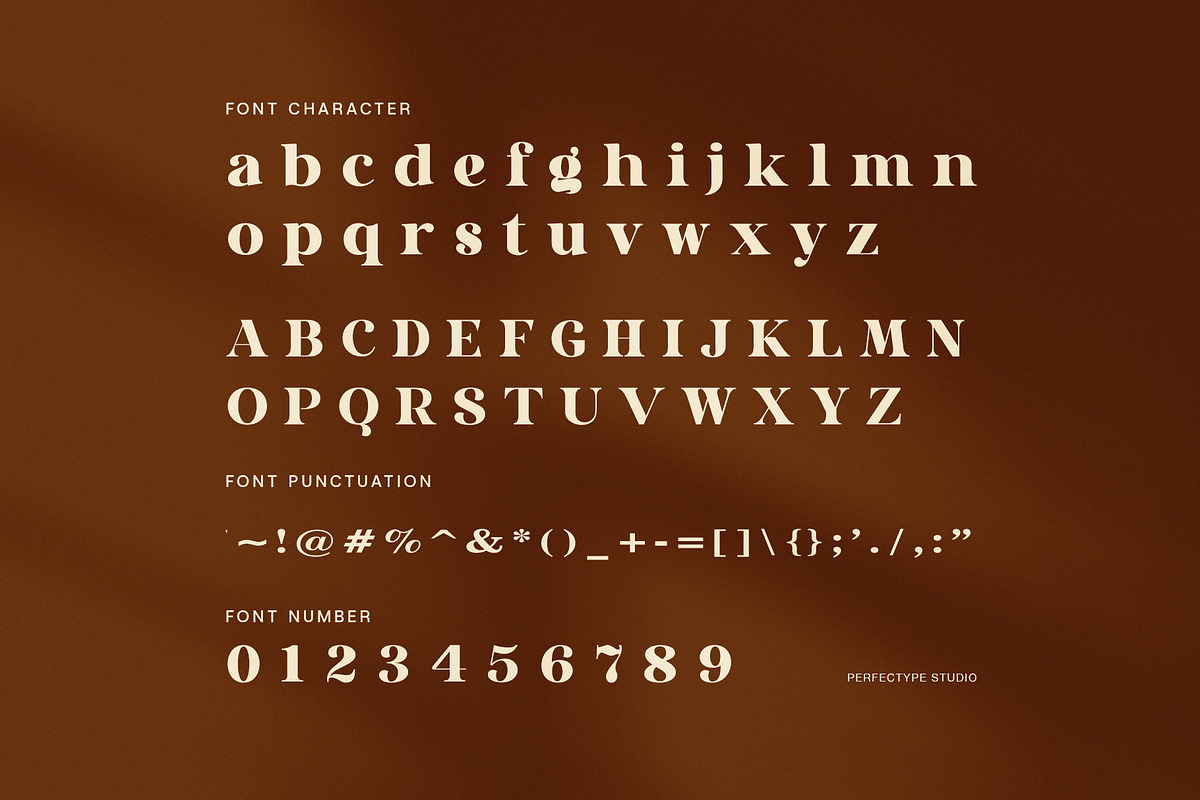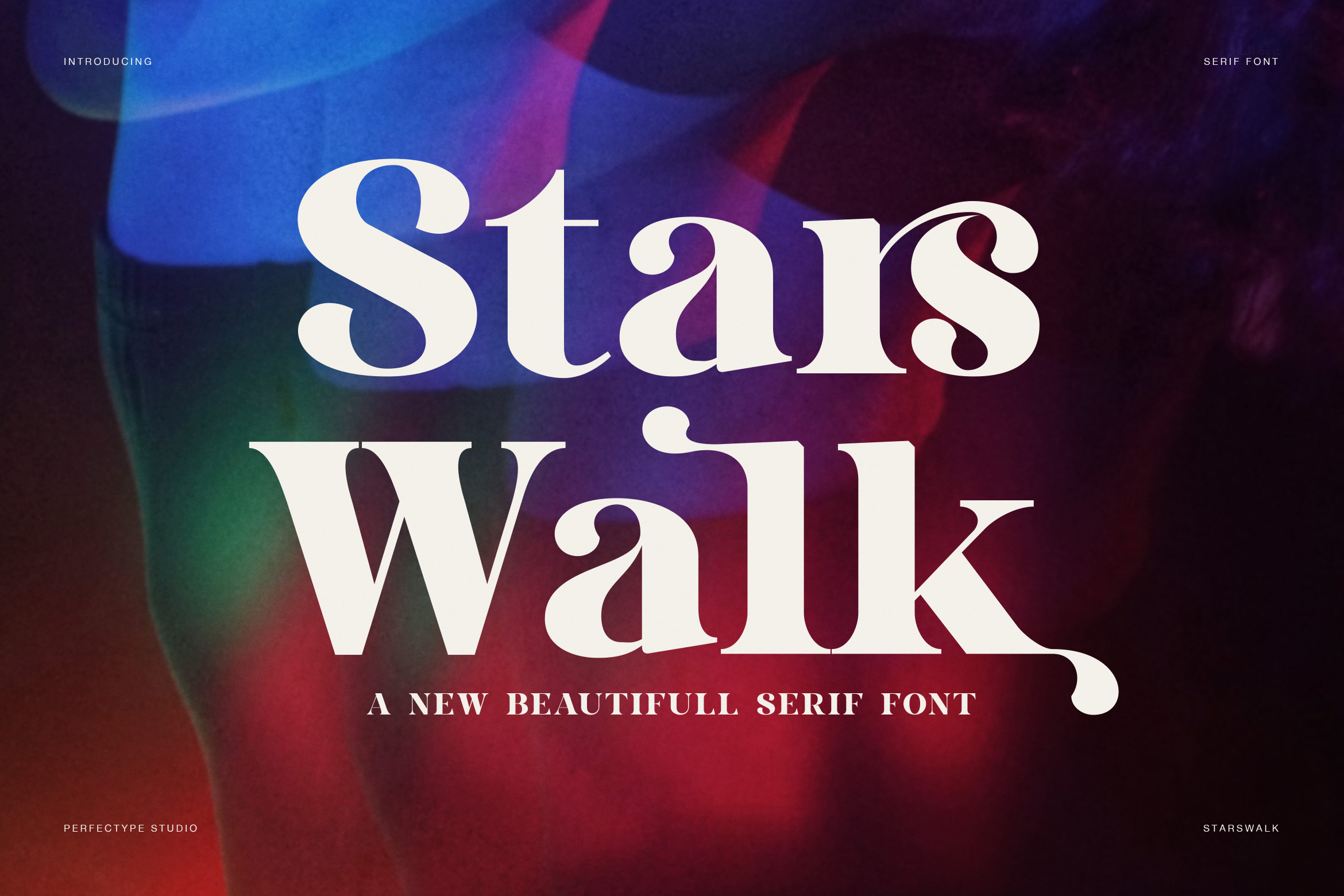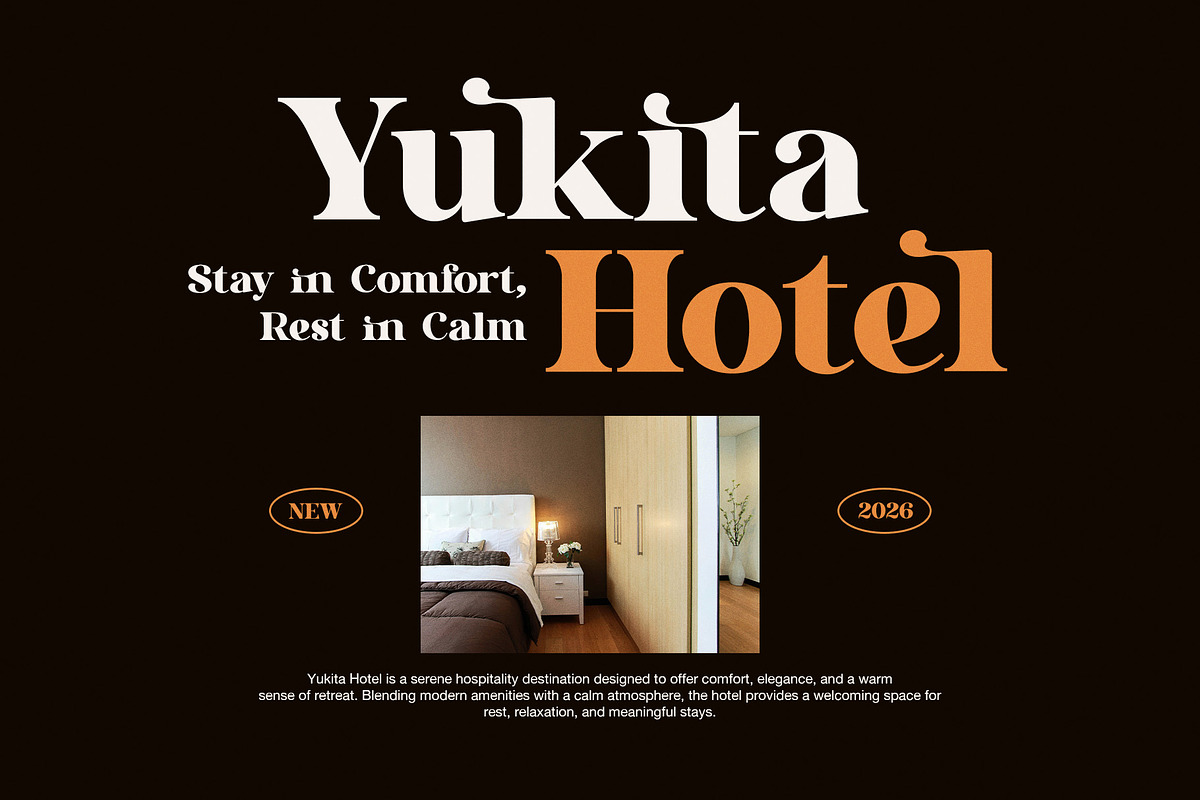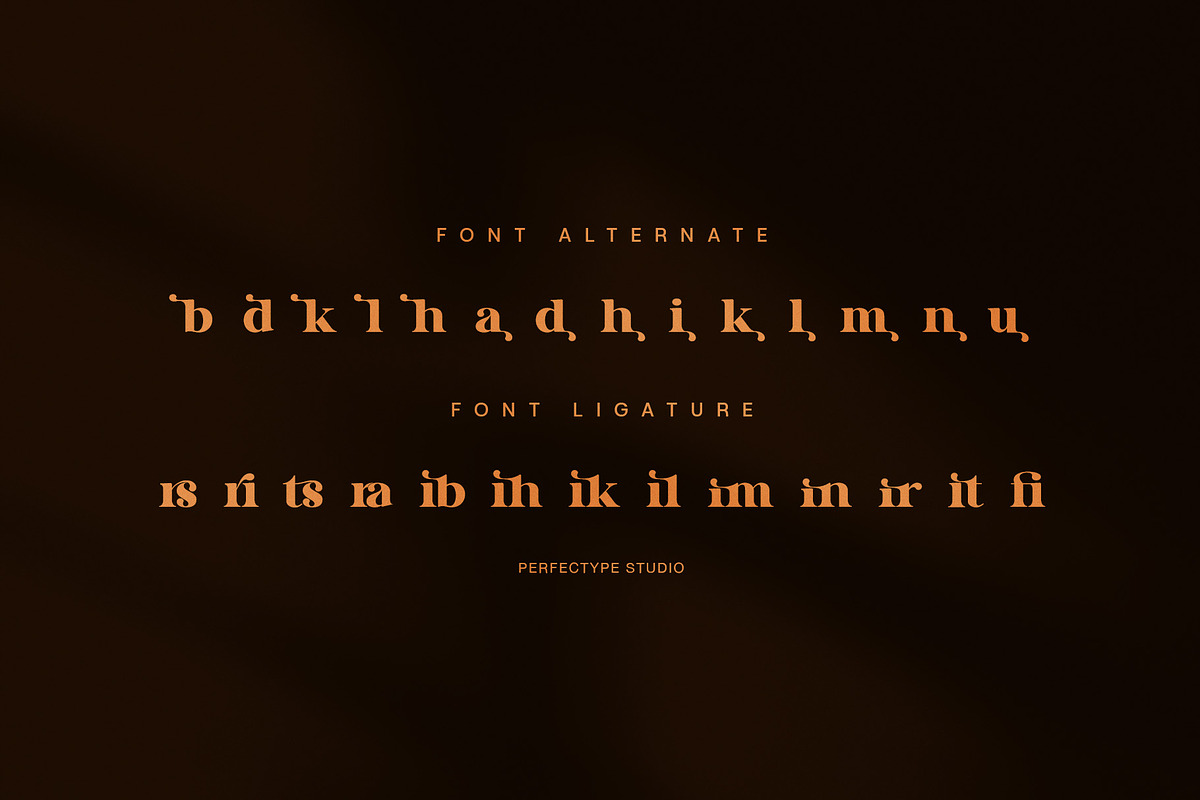
Stars Walk Elegant Serif Font
Elegant Serif Font for Modern Branding and Lifestyle Design
Stars Walk is an elegant serif font designed to express warmth, clarity, and refined style. Moreover, it combines classic serif foundations with soft curves and modern balance, so each letter feels calm and confident. Because of this harmony, Stars Walk works beautifully for branding, editorial layouts, and premium lifestyle projects.
In addition, Stars Walk features graceful alternate characters that add subtle personality to typography. Therefore, headlines and brand names feel expressive without losing readability. At the same time, the main letterforms stay clean and well proportioned. As a result, designers can use this elegant serif font for both bold titles and supporting text.
Furthermore, Stars Walk fits many creative industries. For example, it performs perfectly for fashion collections, hotels, restaurants, and hospitality branding. It also works well for interior design studios, food concepts, magazines, and lifestyle websites. Since the contrast feels soft and controlled, layouts remain elegant and welcoming.
Why designers choose Stars Walk
Stars Walk helps brands communicate elegance with comfort. Also, it supports storytelling through typography, which makes designs feel human and memorable.
Main features and benefits:
Elegant serif letterforms with soft curves
Modern contrast for clear readability
Stylish alternates for expressive typography
Smooth ligatures for natural word flow
Strong uppercase for branding and headlines
Balanced lowercase for longer text
Complete punctuation and numerals
Suitable for print and digital projects
Moreover, Stars Walk creates a calm visual rhythm. Instead of sharp or rigid shapes, it delivers warmth and refinement. Because of that, designs feel trustworthy, stylish, and premium.
Finally, if you are looking for an elegant serif font that supports modern branding, hospitality design, and lifestyle storytelling, Stars Walk offers a versatile and professional solution.